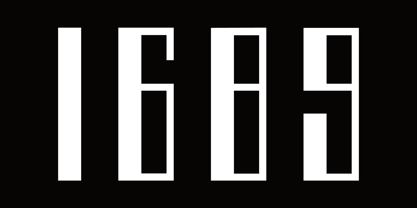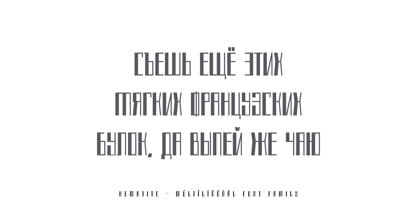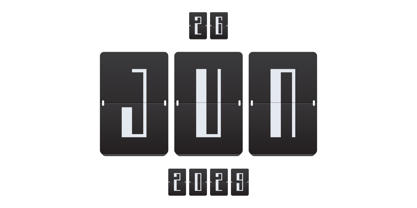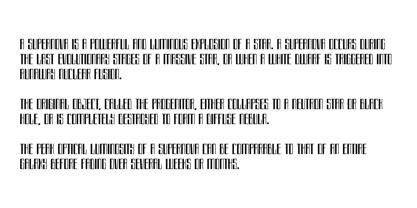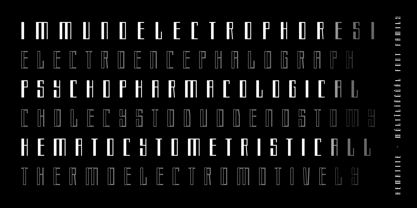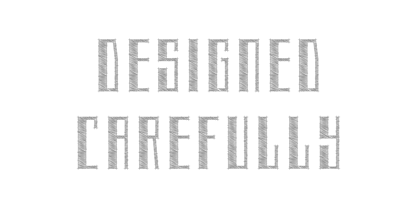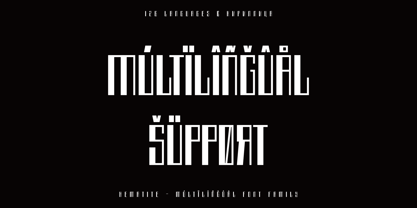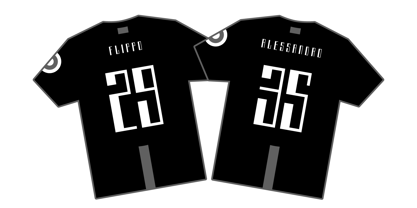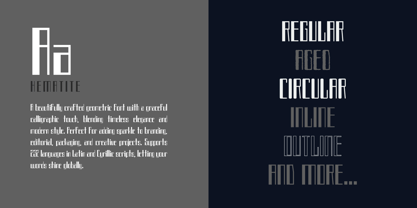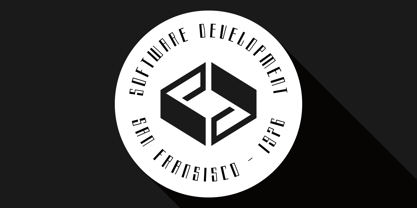
Hematite
by AlperCakici
The Hematite Font Family was designed by Alper Çakıcı and published by AlperCakici. Hematite contains 106 styles and family package options. More about this family
Hematite is a bold, expressive display typeface characterized by its rectangular, calligraphic structure and all-caps design. It masterfully balances rigid geometry with organic stroke movement, creating a striking contrast that feels both engineered and handcrafted. Designed for maximum visual impact, Hematite boasts an extensive family of over 100 styles, ranging from clean and structured to heavily textured and distressed. Variants such as Brush, Chalk, Grainy, Rusty, Sketchy, and Worn introduce rich surface character, while Circular and Rounded counterparts soften the geometry for more approachable applications. This versatile typeface supports both Latin and Cyrillic scripts, covering a wide range of languages, making it ideal for international design projects. Its all-caps construction emphasizes clarity and strength, making it perfect for headlines, branding, posters, packaging, editorial design, and digital graphics. Whether you seek a polished modern look or a raw, weathered aesthetic, Hematite provides a comprehensive toolkit. The combination of clean forms and expressive textures allows designers to transition seamlessly between contemporary and vintage-inspired visuals. Hematite is not just a font family; it’s a complete display system designed for creative flexibility and bold typographic expression.
Designers: Alper Çakıcı
Foundry: AlperCakici